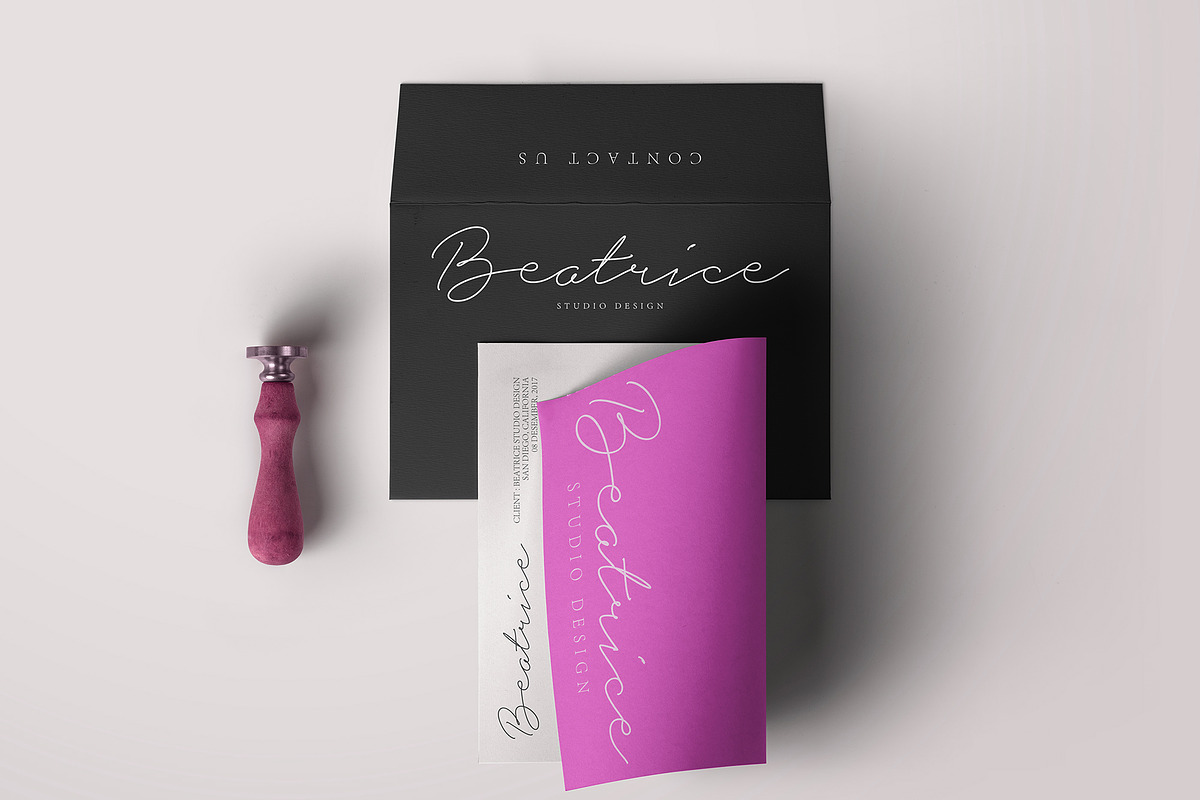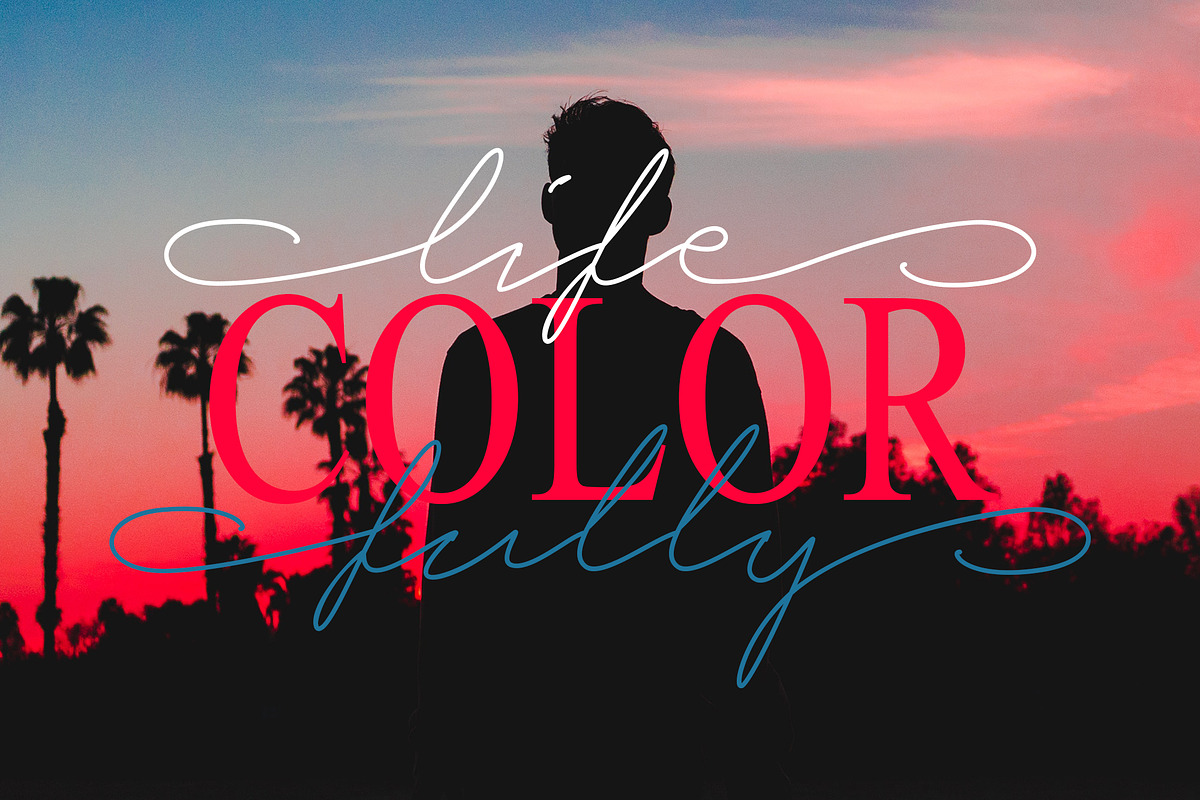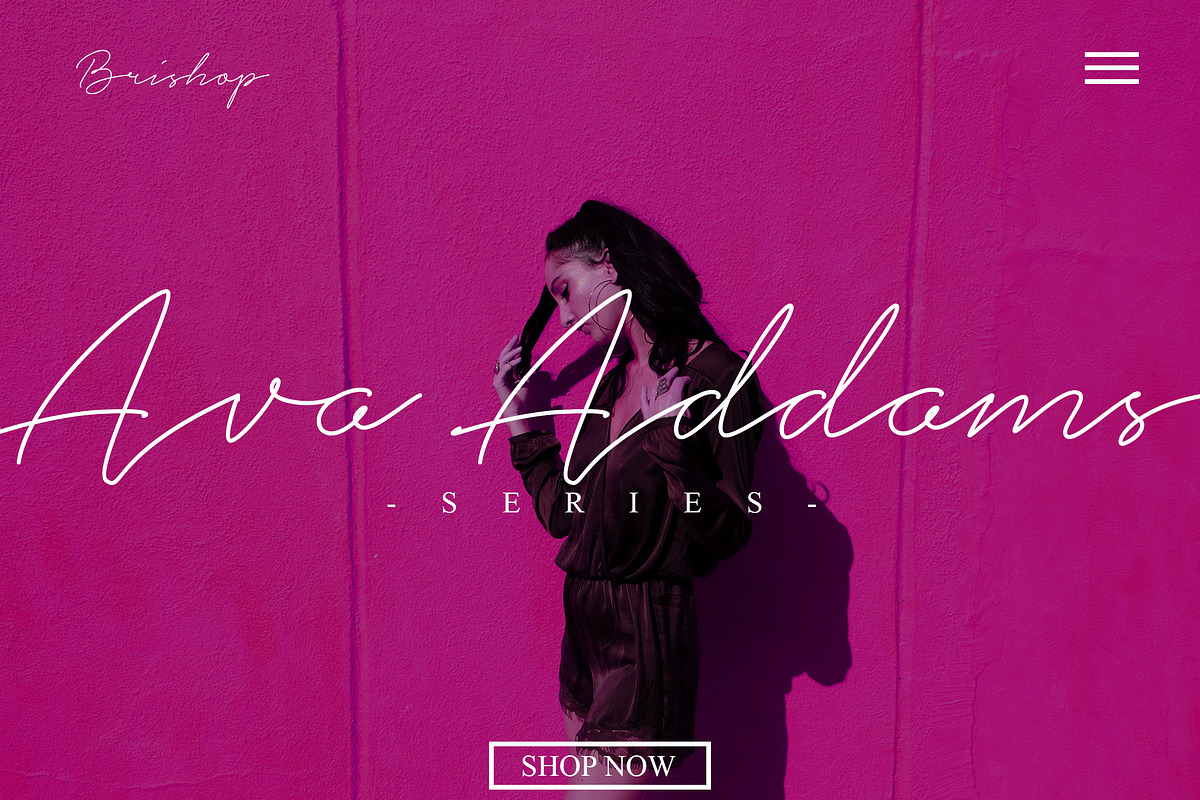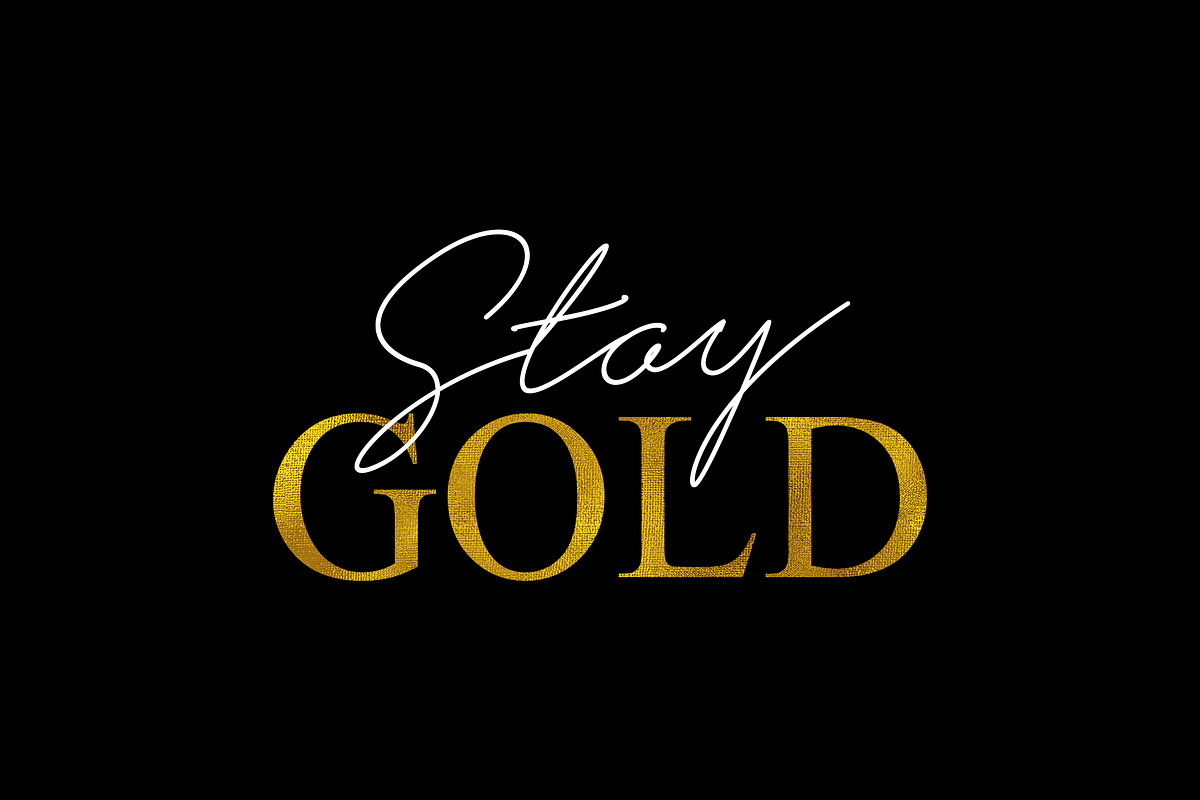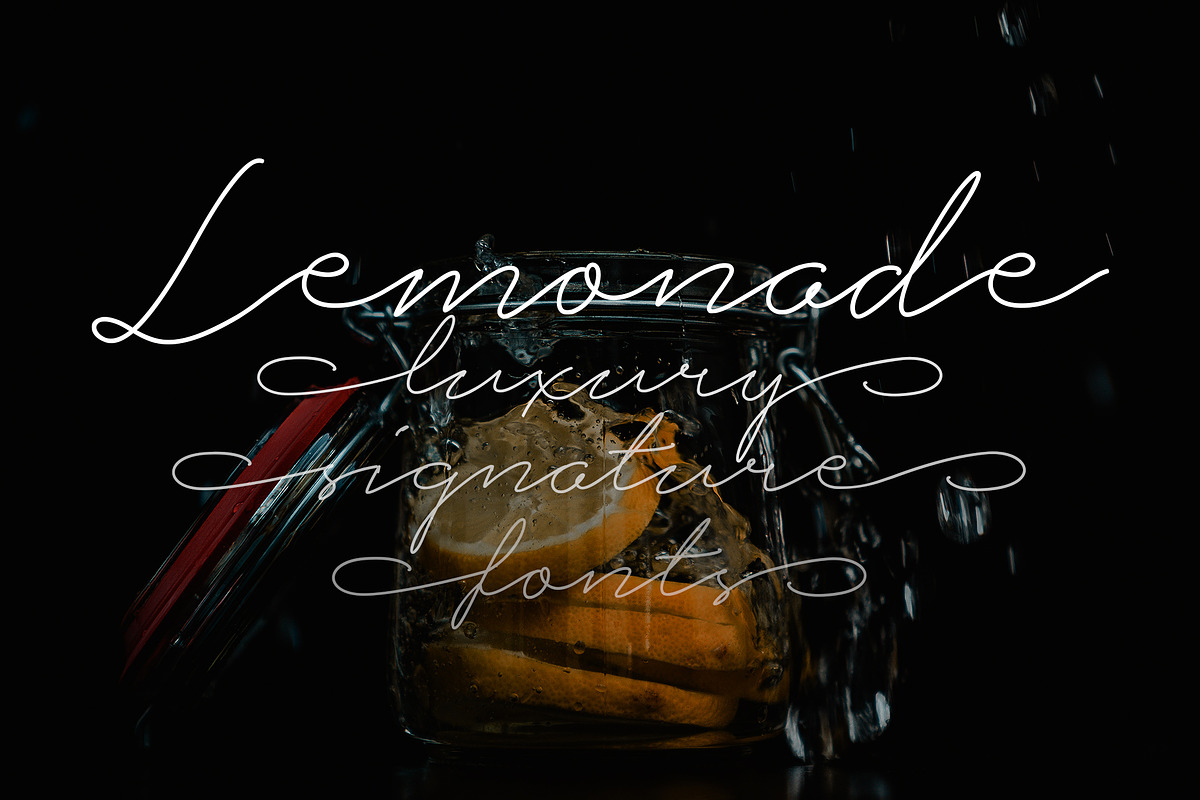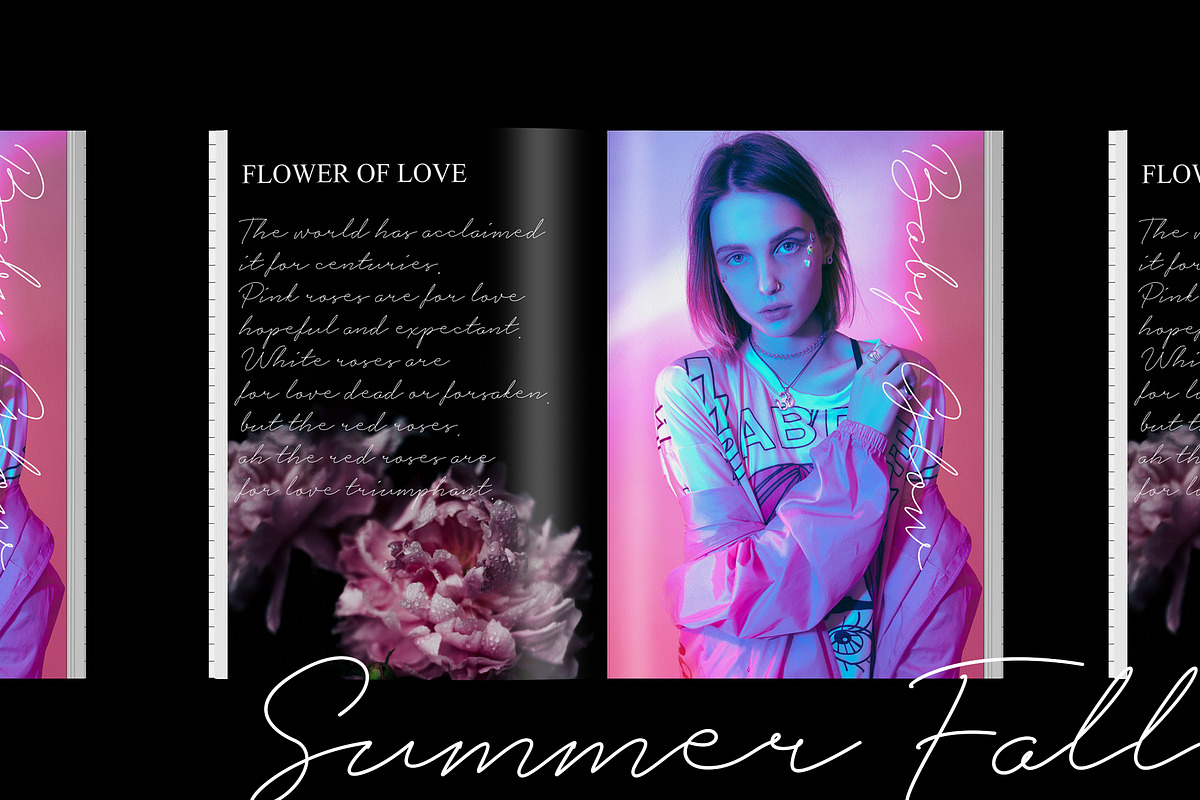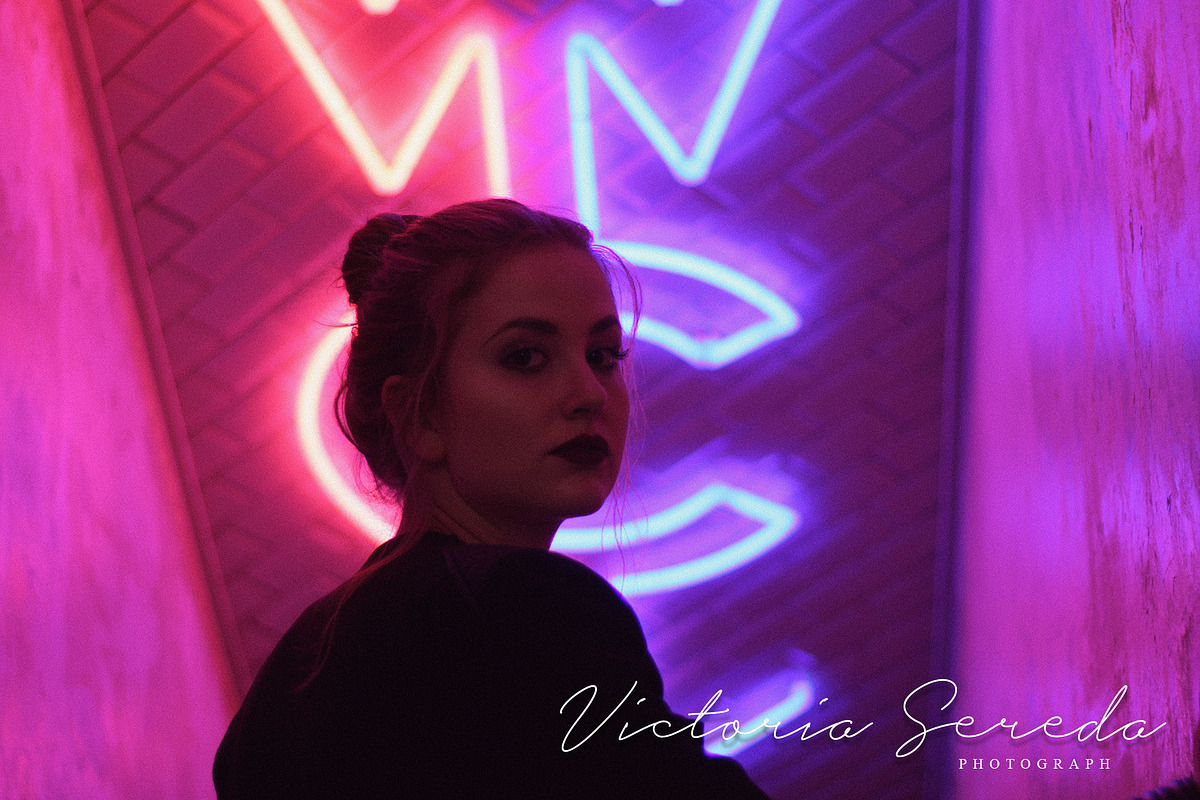
Lemonade Signature Font
Lemonade Script includes uppercase and lowercase letters, numerals, a large range of punctuation, multilingual language and ligatures. All lowercase letters include ending swashes and alternative font.
Lemonade Signature Font by MuntabArt fits naturally into Branding, posters, packaging, typography.